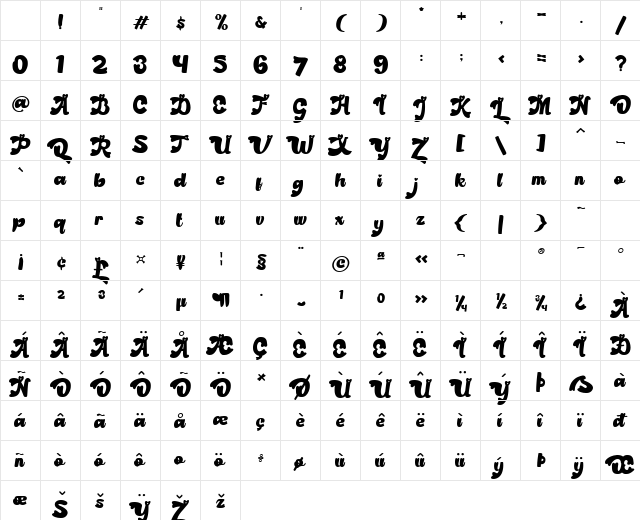
Retro Amour wears its vintage influences proudly, with letterforms that recall mid-century signage, classic packaging, and nostalgia-driven design.
Font Pairing: Combine Retro Amour with a simple slab or neutral sans - period-accurate companions reinforce the vintage feel without competing for attention.
Pro Tip: Lean into Retro Amour's period character by pairing it with aged paper textures, muted colour palettes, and vintage illustration styles.